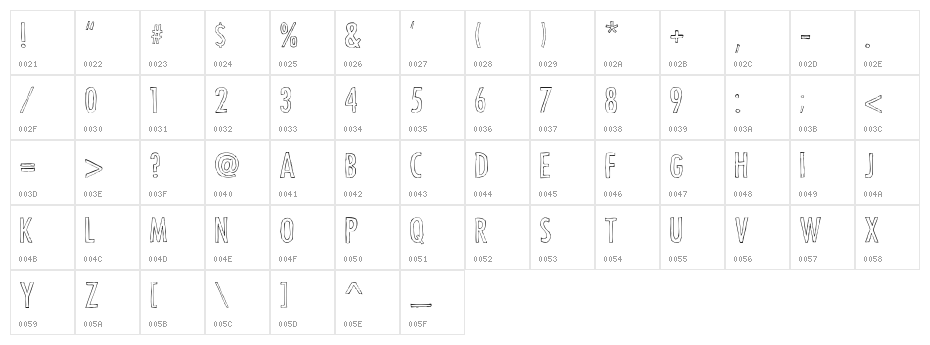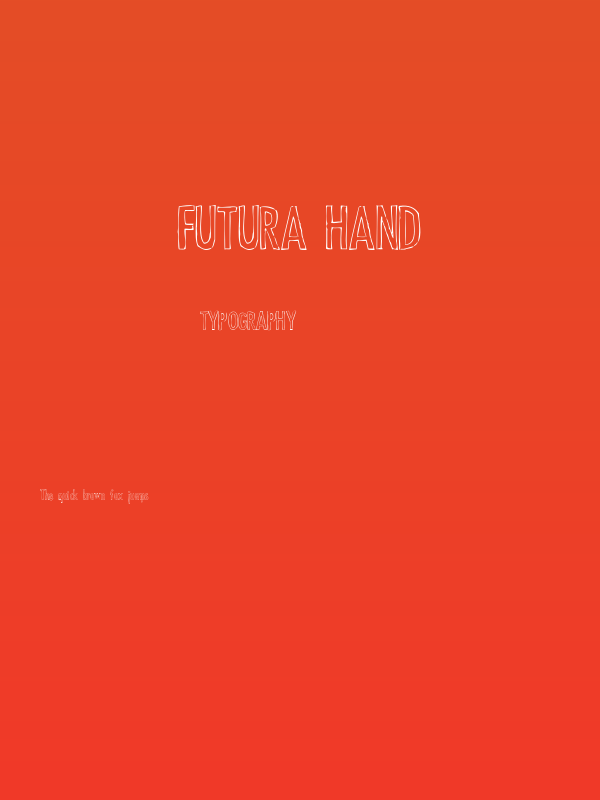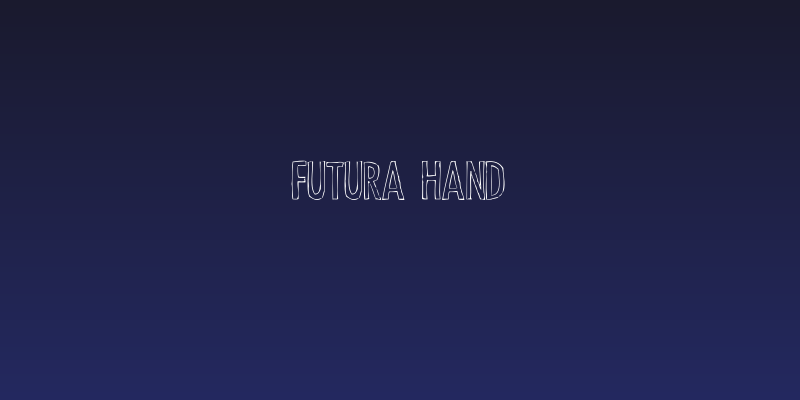
Futura Hand Font
Futura Hand Description
This font features a playful, hand-drawn aesthetic with a casual and informal style. The letters are slightly irregular, giving them a charming, whimsical appearance. The strokes are consistent in width, creating a uniform look across characters. The uppercase and lowercase letters maintain a cohesive design, with rounded edges and a friendly demeanor. The numerals and special characters follow the same style, ensuring a harmonious overall appearance. This font is ideal for projects that require a personal touch or a creative flair.
| Overall Style | Casual, Whimsical |
| Use Case | Headlines, Creative projects, Informal text |
| Proposed Projects | Ideal for greeting cards, children's books, creative posters, and informal branding. |